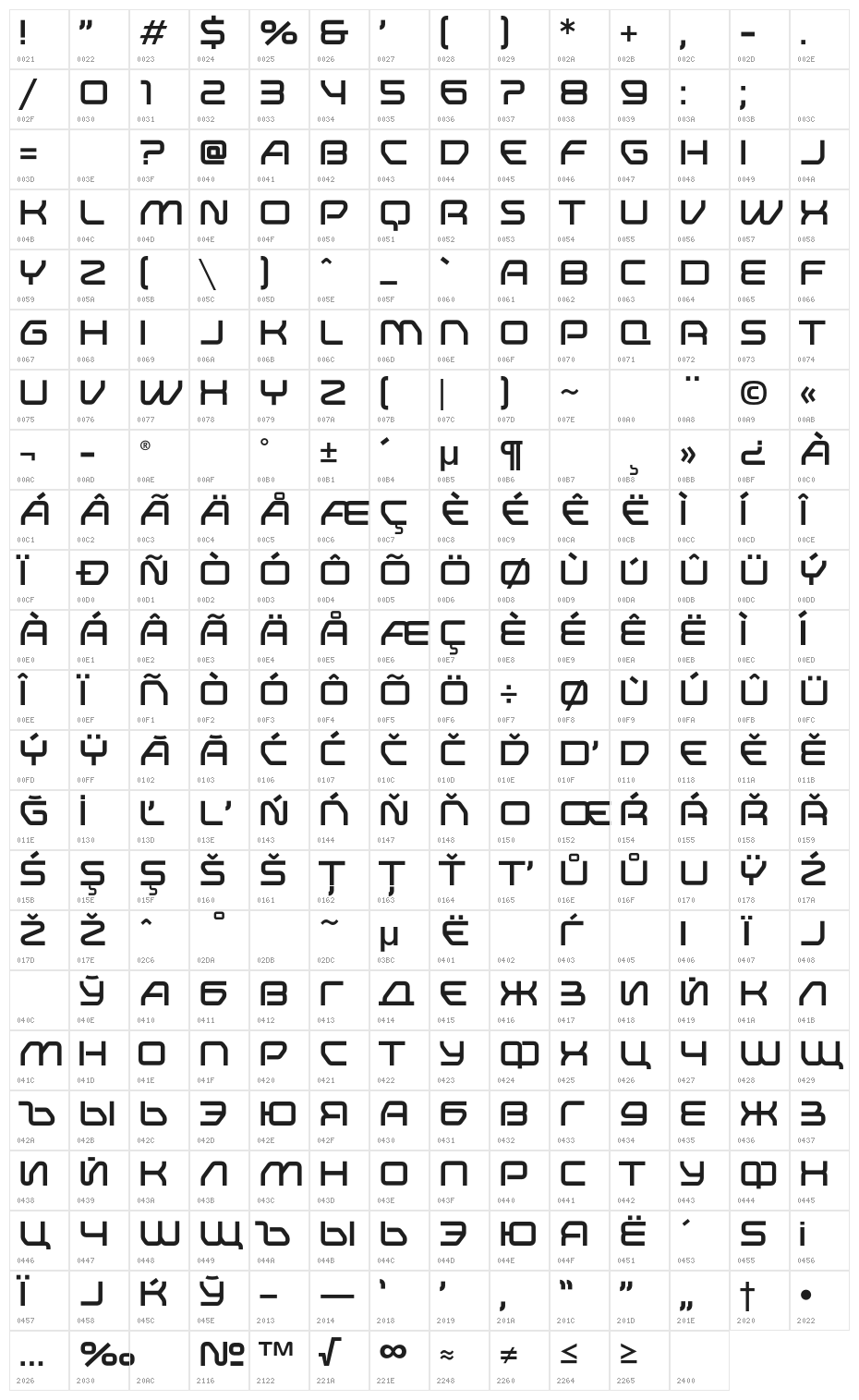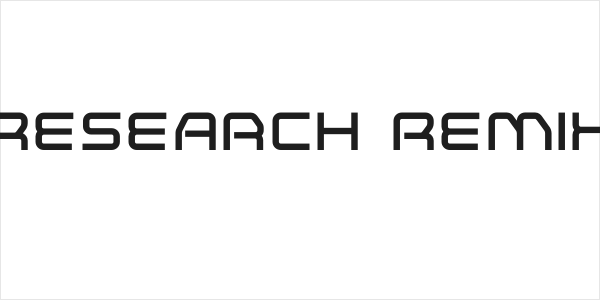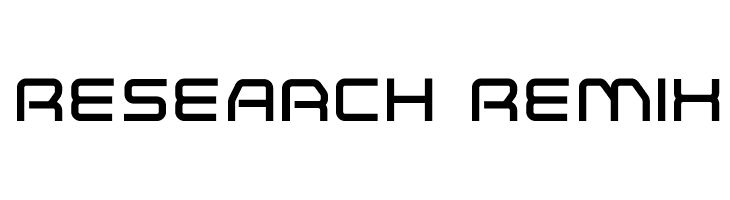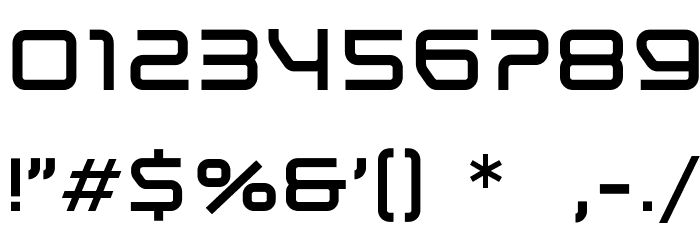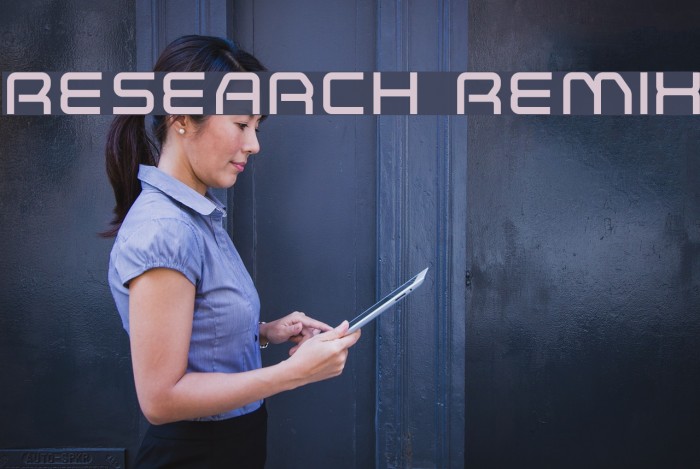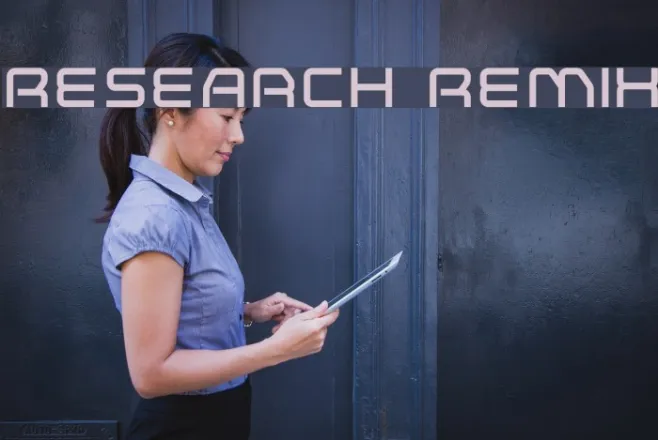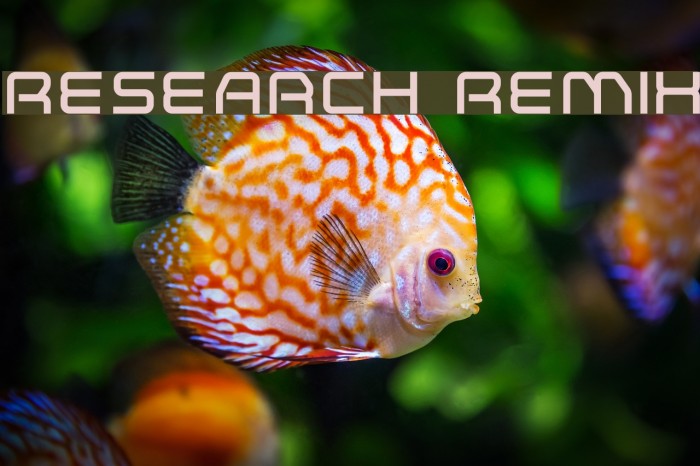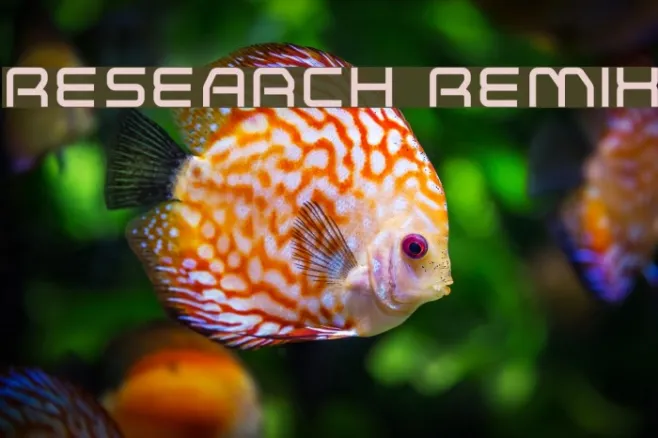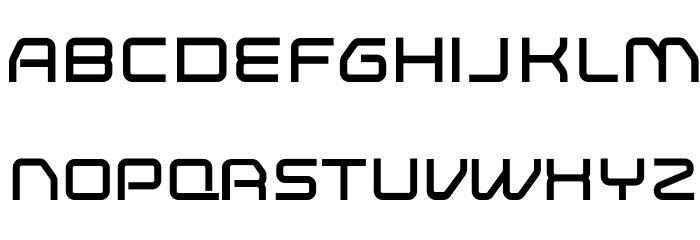
Research Remix Font
Research Remix Description
This font features a futuristic and geometric design, characterized by its clean lines and angular shapes. The uppercase and lowercase letters maintain a consistent style, with a slight emphasis on angularity and minimalism. The numerals are equally geometric, offering a cohesive look across all characters. The special characters complement the overall design, maintaining the same sharp and modern aesthetic. This font is ideal for projects that require a contemporary and tech-savvy appearance, making it suitable for digital interfaces, branding, and modern advertising.
| Use Case | Headlines, Logos, Digital interfaces |
| Proposed Projects | Ideal for digital interfaces, branding, modern advertising, and tech-related projects. |